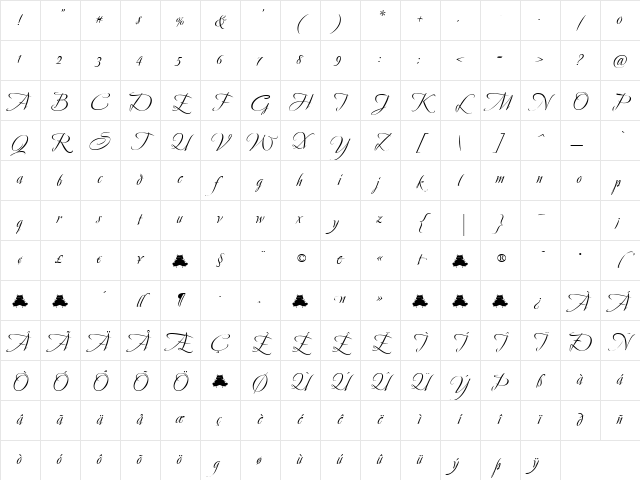
Complete Avalon Medium Regular glyph index. Displaying only characters natively supported by Avalon Medium Regular font.
Avalon Medium is a composed and adaptable typeface that performs quietly and consistently across a wide range of design contexts.